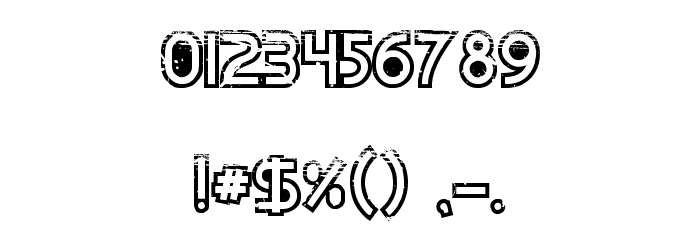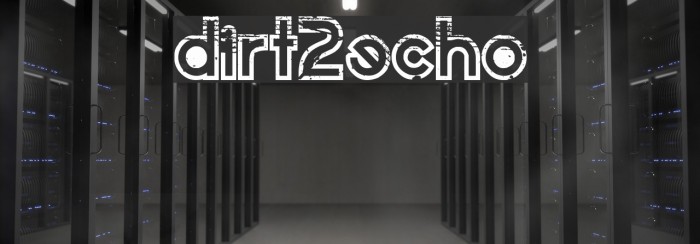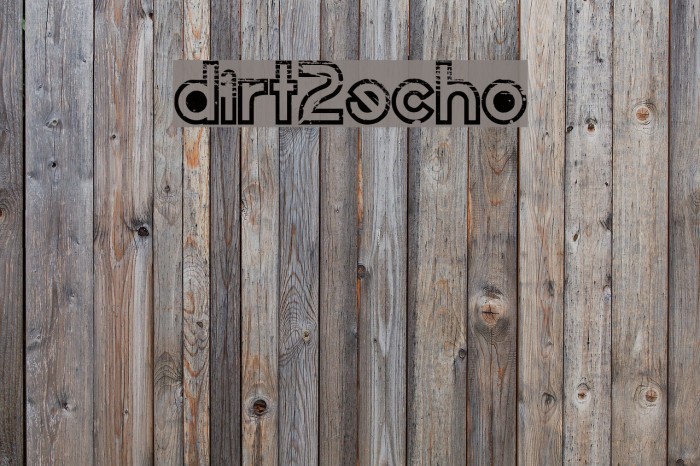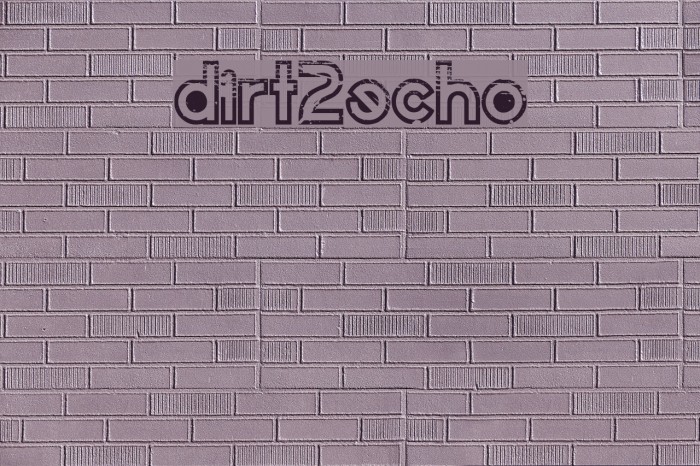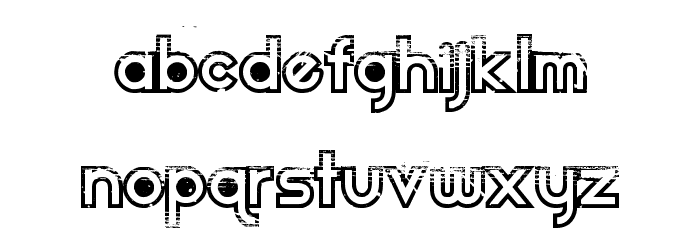
Dirt2Echo Font
Dirt2Echo Description
This font features a bold, distressed style with a unique grunge effect. The characters have a rough, textured appearance, giving them a worn and rugged look. The uppercase and lowercase letters are consistent in style, maintaining the distressed theme throughout. The numbers and special characters also follow this aesthetic, making the font cohesive and visually striking. The design is perfect for projects that require a bold statement or a vintage, edgy feel.
A bold, distressed font with a grunge effect and rugged texture from Uncategorized fonts.
- Proposed Projects: Ideal for album covers, posters, urban-themed designs, and branding that requires a gritty, vintage look.
- Overall Style: Vintage, Grunge